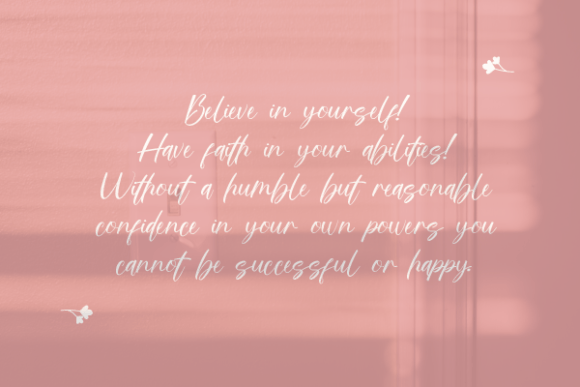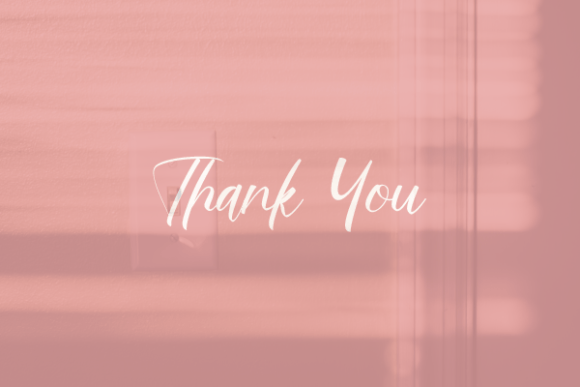
Unlock the Magic of Clover Flower Font
Have you ever stumbled upon a font that makes you feel like a creative genius? For me, that moment came when I discovered the perfect script to elevate my Instagram captions. It’s a feeling that’s hard to describe, but it’s like the words on the page come alive, and suddenly, your message becomes a work of art.
Enter the enchanting Clover Flower Font, a magical script font that will transport your designs to a world of elegance and sophistication. This font is more than just a pretty face; it’s a powerful tool for designers who want to add a touch of whimsy and personality to their projects. Whether you’re a seasoned pro or a DIY enthusiast, Clover Flower Font is the perfect companion to help you bring your creative ideas to life.
Clover Flower Font Key Features
- Unique Characteristics: The Clover Flower Font features a delicate, hand-drawn design with intricate details and a whimsical feel, making it ideal for creative and artistic projects
- Font Weight: Available in a single weight, but can be used in combination with other fonts to create a range of effects
Clover Flower Font Review
I recently had the chance to work with the Clover Flower Font, and I must say it’s a mixed bag. Here are my honest thoughts on its strengths and weaknesses.
- ✨ Beautiful, delicate design: The Clover Flower Font has a unique and charming aesthetic that can add a touch of whimsy to any project.
- ✨ High-quality vector graphics: The font is well-crafted and scalable, making it suitable for a variety of applications, from small web projects to large-scale print materials.
- ✨ Versatile: The Clover Flower Font comes in a range of weights and styles, making it easy to adapt to different design needs.
- ⚠️ Limited character set: The font’s character set is somewhat limited, which may be a concern for designers who need to use it for complex text-based projects.
- ⚠️ Not suitable for bold text: While the font has a range of weights, it’s not designed for bold or heavy text, which may limit its use in certain contexts.
The Clover Flower Font is a lovely, charming font that can add a touch of elegance to many projects. However, its limitations may make it less suitable for more complex or demanding design tasks. I’d recommend it for designers who need a delicate, whimsical font for smaller projects or as a decorative element.
Tips for Getting the Most Out of the Clover Flower Font
Use the Clover Flower Font to add a touch of whimsy and elegance to your designs.
Pair the font with pastel colors and floral patterns for a romantic and feminine look.
Experiment with different font sizes and styles to create visual interest and emphasis.
The Clover Flower Font is ideal for:
Baby shower and nursery decor
Feminine and whimsical branding
Floral-themed designs and patterns
Alternatives to Clover Flower Font
Luckiest Charm
Luckiest Charm is a whimsical, handwritten font with a delicate touch. It’s ideal for creating a sense of magic and wonder in your designs, making it perfect for children’s book covers, greeting cards, or wedding invitations.
Compared to Clover Flower Font, Luckiest Charm has a more playful and carefree feel, with a greater emphasis on cursive connections and flourishes. While Clover Flower Font has a softer, more romantic quality, Luckiest Charm is bolder and more eye-catching.
Wildflower Script
Wildflower Script is a beautiful, hand-painted font that evokes the freedom and beauty of the great outdoors. It’s perfect for designs that need to convey a sense of adventure and exploration, such as travel brochures, outdoor gear packaging, or nature-inspired art.
Compared to Clover Flower Font, Wildflower Script has a more organic and natural feel, with a greater emphasis on texture and imperfection. While Clover Flower Font is delicate and refined, Wildflower Script is more rustic and earthy.